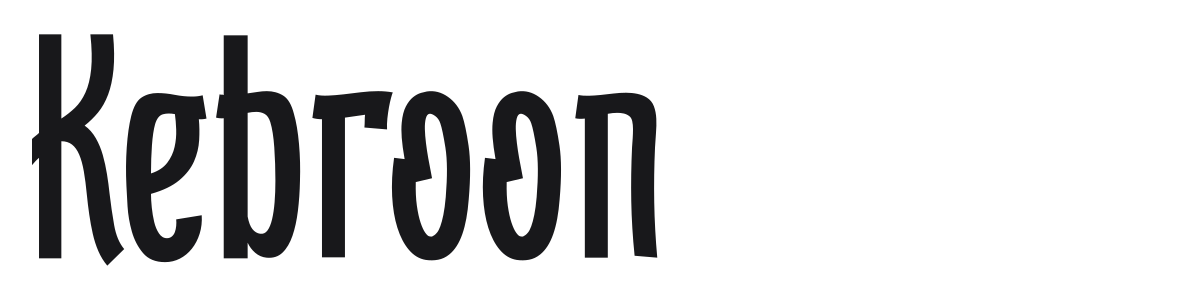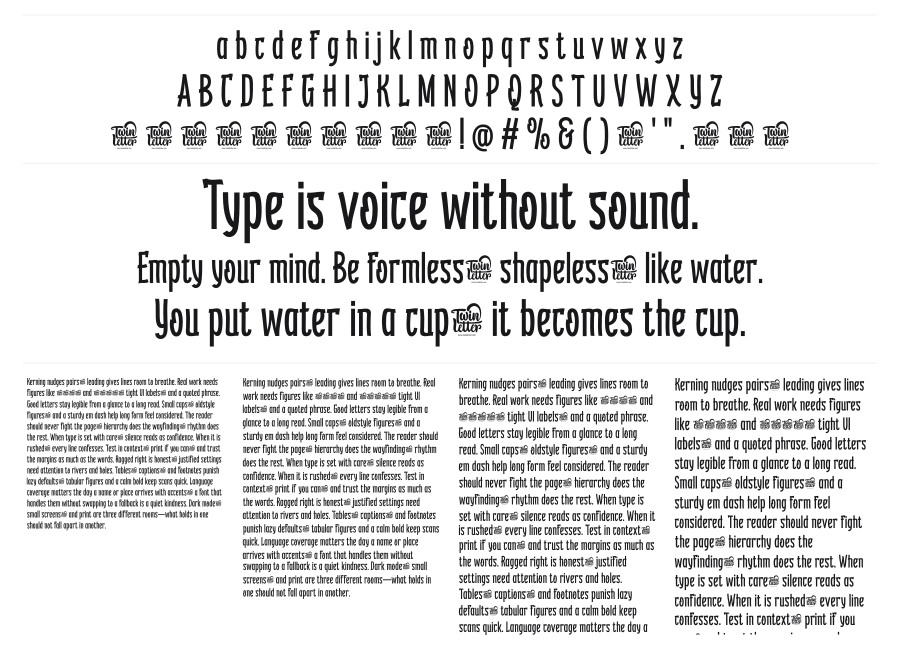
Kebroon
Kebroon is a bold condensed retro sans with an organic, hand-painted energy that channels vintage festival posters and mid-century signage. The irregular terminals and subtly uneven strokes keep it from feeling mechanical, giving it genuine character at large sizes. It suits brands that want nostalgia with some grit.